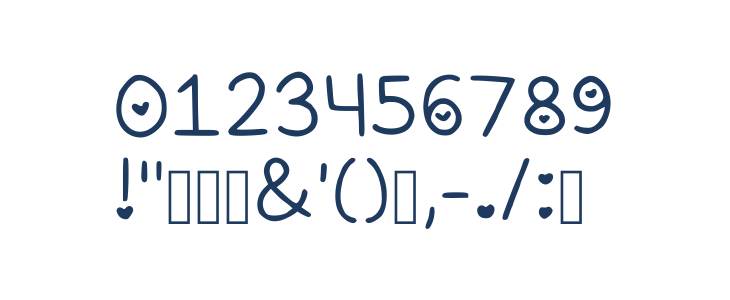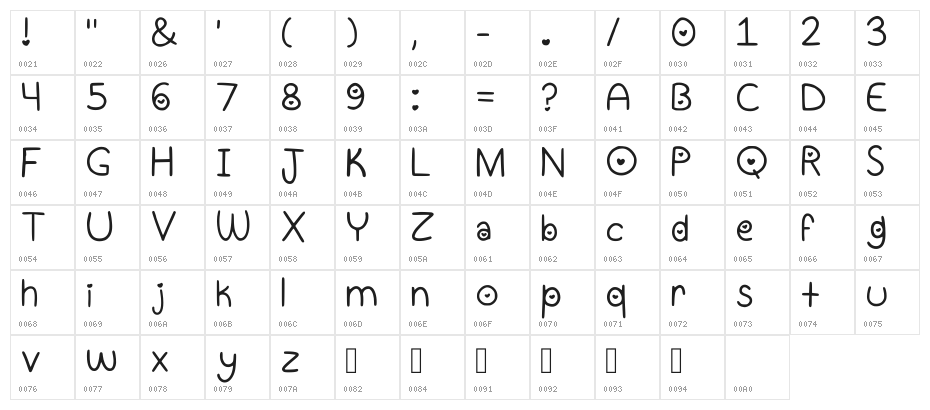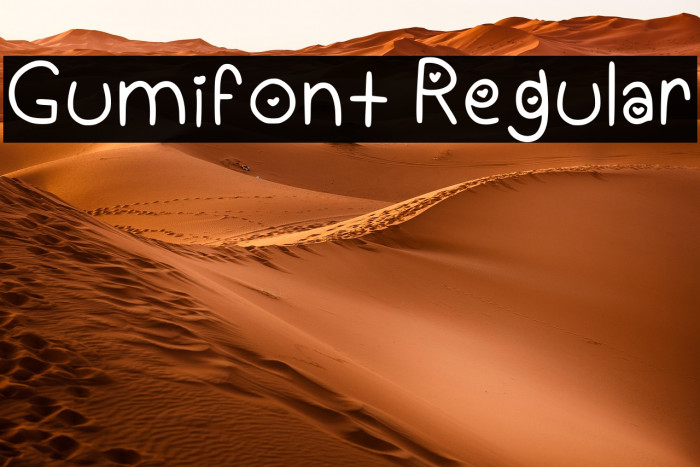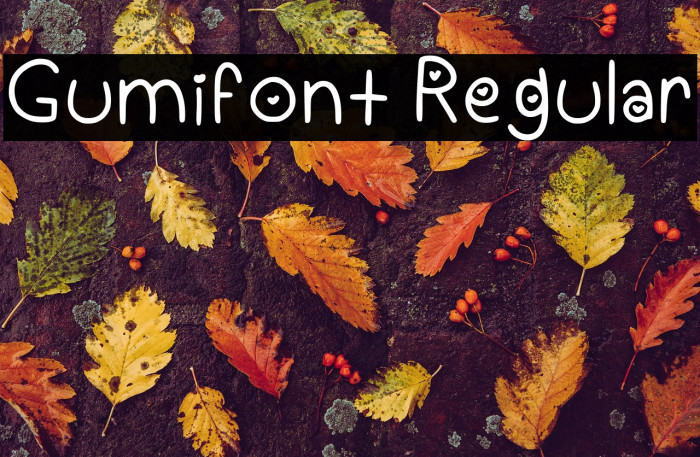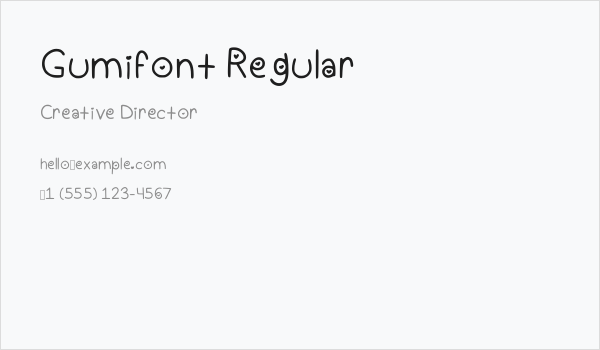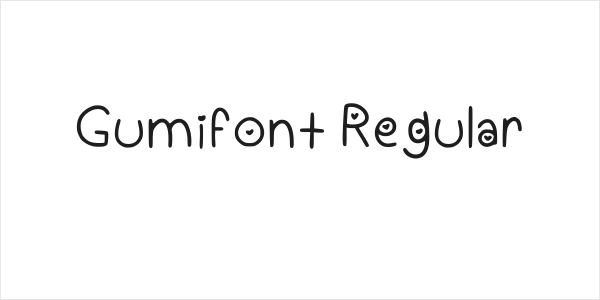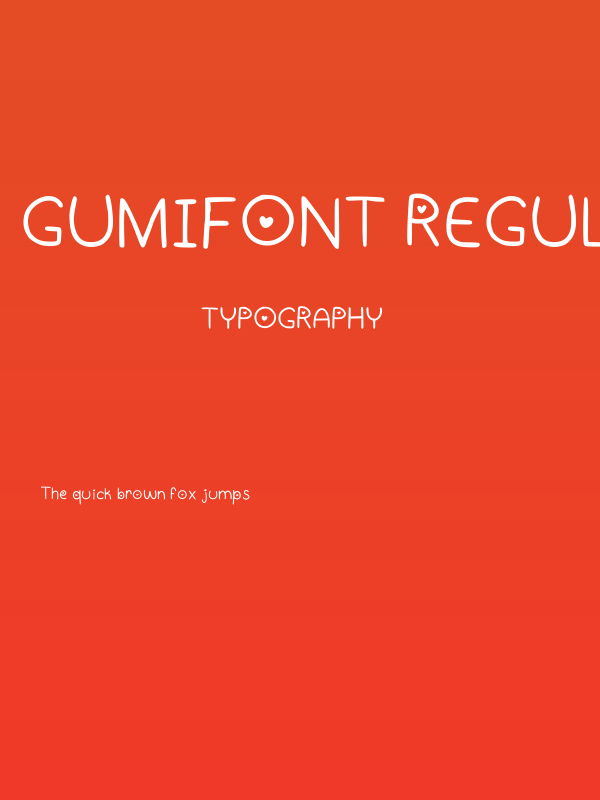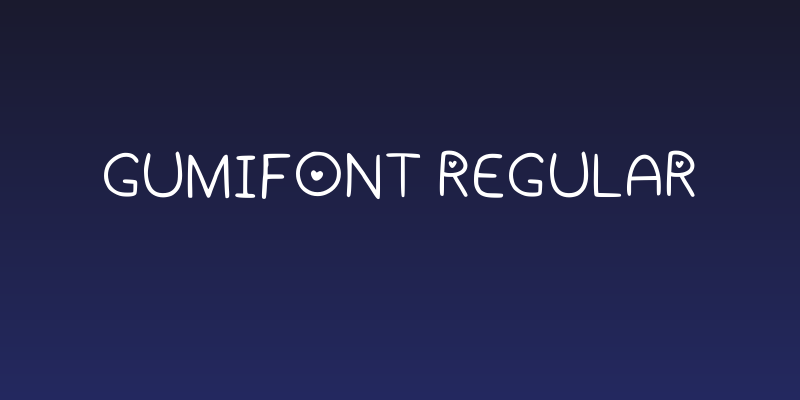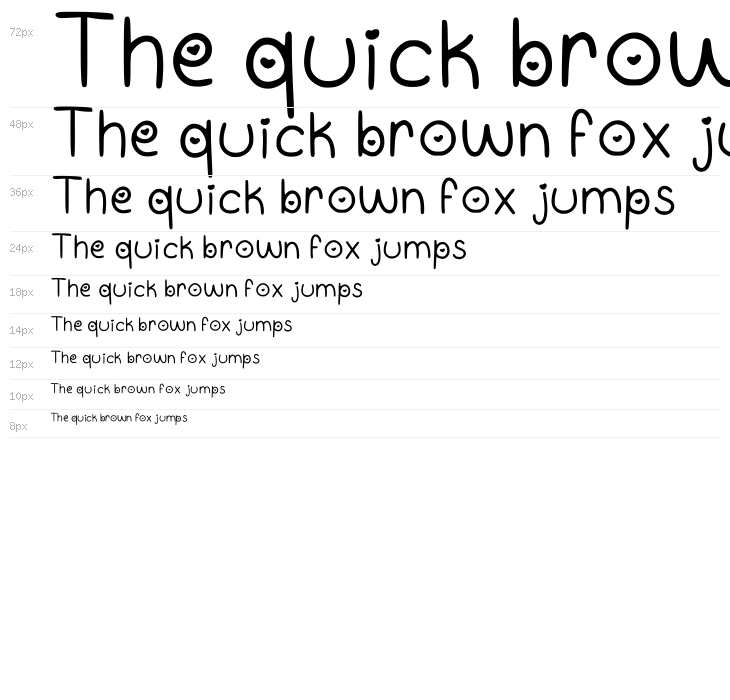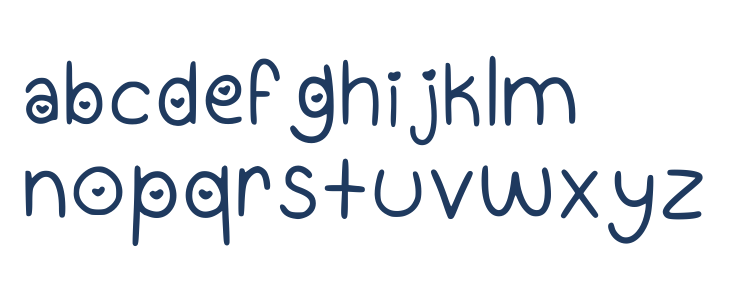
Gumifont Regular Font
Gumifont Regular Description
This playful and whimsical font features rounded, hand-drawn characters with a unique and friendly appearance. The letters are slightly irregular, adding a charming and informal touch. Notably, the font incorporates heart shapes within certain characters, such as the letter 'O' and the number '0', enhancing its playful nature. The strokes are consistent in thickness, providing a uniform look across all characters. This font is perfect for projects that require a fun and approachable aesthetic, such as children's books, playful branding, or casual invitations.
| Proposed Projects | Ideal for children's books, playful branding, casual invitations, and greeting cards. |